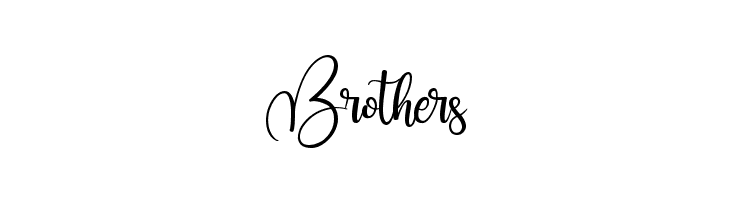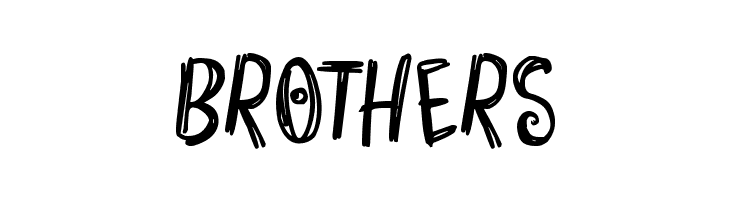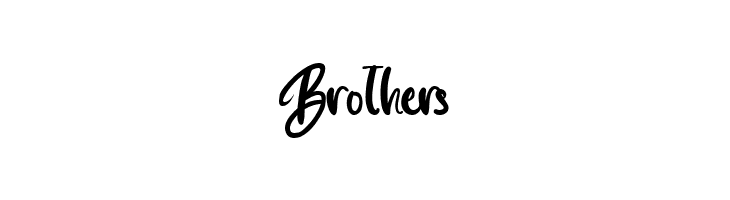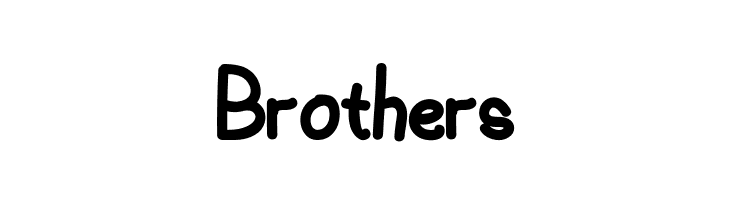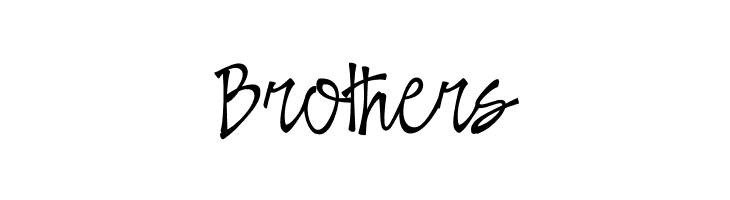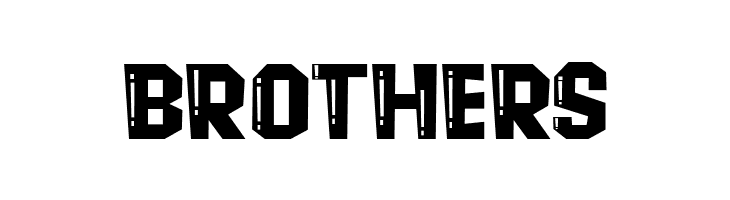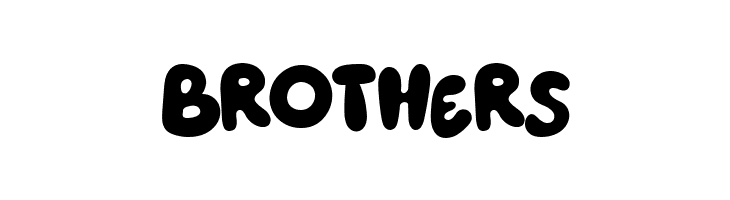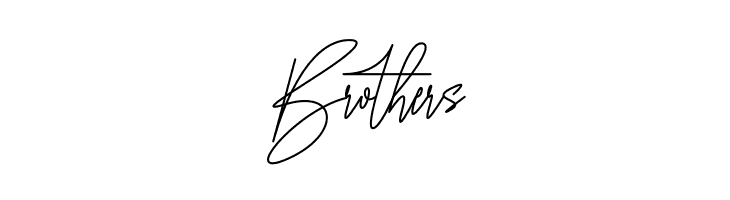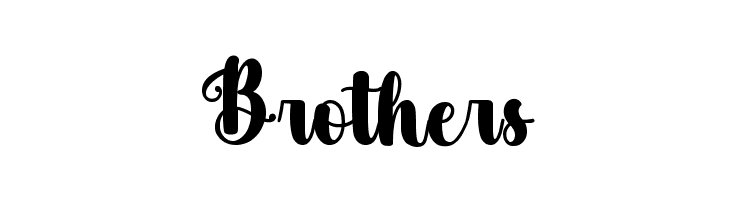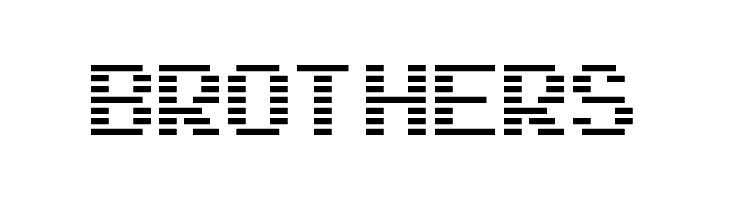
A playful, bold font with rounded, thick strokes and a cartoonish style.
An elegant, flowing script font with ornate uppercase and smooth lowercase letters.
A playful, hand-drawn font with thick, rounded strokes and a whimsical style.
A modern, elegant script font with flowing, cursive strokes.
A futuristic, geometric font with high contrast and angular design.
A pixelated, retro-style font inspired by vintage digital displays.
A bold, cursive handwritten font with a playful and elegant style.
A dynamic and elegant script font with fluid strokes and a sophisticated style.
A lively, handwritten script font with bold, flowing strokes.
Elegant, thin, cursive handwritten script with flowing, organic lines.
A bold slab serif font with a modern yet classic appeal.
A clean, modern monospaced font with uniform character width and geometric shapes.
A collection of historical symbols used for communication by itinerant workers.
A decorative symbol font based on historic hobo signs.
A bold, stencil-like font with sharp, angular edges and an industrial feel.
A playful, cursive font with dynamic strokes and elegant connections.
Playful handwritten script with tall, whimsical letters.
A bold, angular gothic-style font with sharp edges and dramatic flair.
Bold, decorative script with festive swashes and high contrast.
A playful, cursive font with artistic, handwritten characteristics.
A bold, hand-drawn font with an energetic and playful style.
A decorative font with whimsical horse illustrations integrated into each character.
A bold, modern font with strong, uniform strokes and geometric precision.
A bold, distressed font with a textured, vintage appearance.
A dynamic brush-style font with artistic swashes and a hand-drawn appearance.
A dynamic handwritten font with fluid strokes and a casual style.
Automotive-themed pictorial display font using car parts and tools for each character.
A playful, handwritten font with a whimsical and casual style.
A playful, bold font with rounded edges and a hand-drawn appearance.